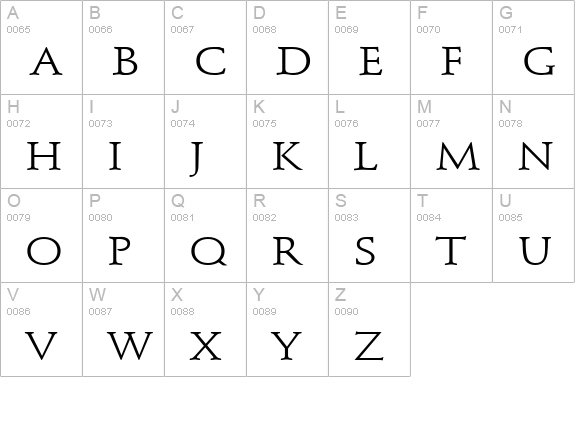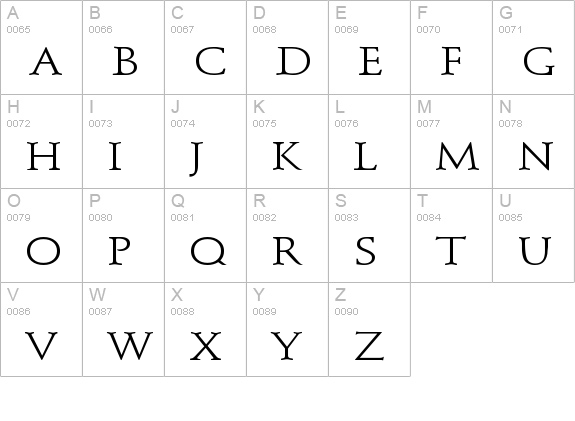
Schroeder Wide Normal is the standard, neutral, extended-width variant in the Schroeder typeface family \xE2\x80\x94 well suited to general body text, paragraphs, and standard typographic work.
Schroeder Wide Normal font is a versatile and eye-catching typeface that will effortlessly elevate any design project. With its clean lines and well-balanced proportions, this font exudes a sense of modernity and professionalism. The wide width of the letterforms adds a touch of boldness and impact, making it perfect for headlines, logos, and signage. What sets Schroeder Wide Normal font apart is not only its aesthetic appeal but also its accessibility. It is available for free download at FontsMarket.com, allowing designers, students, and enthusiasts to easily access and utilize this fantastic font in their projects. Whether you're working on a personal website, a corporate presentation, or a creative branding campaign, Schroeder Wide Normal font will lend a stylish and contemporary touch to your designs. This font also offers a wide range of characters, including uppercase and lowercase letters, numbers, symbols, and punctuation marks. This versatility ensures that you can fully express your creativity and effectively communicate your message. Additionally, the font is designed with precision and attention to detail, ensuring smooth readability even at smaller sizes. Whether you're looking to make a statement or simply add a touch of sophistication to your designs, Schroeder Wide Normal font is the ideal choice. Its sleek and modern aesthetic, combined with its availability as a free download at FontsMarket.com, makes it a must-have for any designer's font collection. So don't miss out on this fantastic opportunity to enhance your designs with this remarkable typeface. Download Schroeder Wide Normal font today and unleash your creative potential.